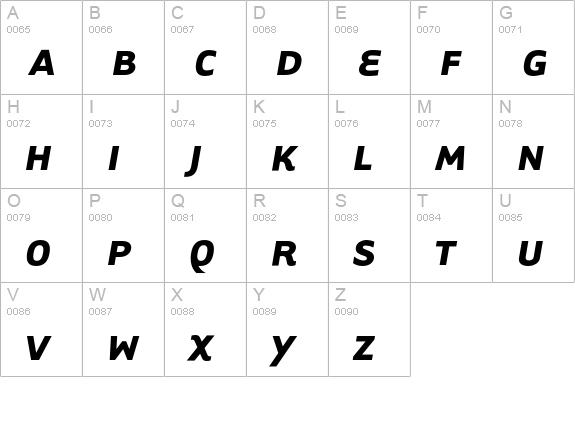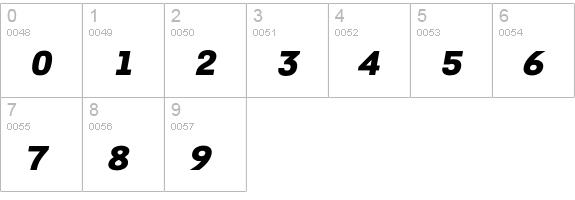
Introducing TarzanaWideBoldItalic font, a stunningly bold and italicized typeface that exudes confidence and elegance. With its wide and bold letterforms, this font commands attention and makes a lasting impression. TarzanaWideBoldItalic is the perfect choice for designs that require a strong visual impact. Whether it's for logos, headlines, or branding materials, this font adds a touch of sophistication and modernity to any project. What sets TarzanaWideBoldItalic apart is not just its striking aesthetics, but also its versatility. It is equally at home in both print and digital mediums, ensuring that your message resonates across various platforms. The best part? TarzanaWideBoldItalic is available for free download at FontsMarket.com. Yes, you read that right – this incredible font is freely accessible to all, allowing you to add a touch of boldness to your designs without breaking the bank. So why wait? Download TarzanaWideBoldItalic today and unleash your creativity. Let this font elevate your designs to new heights and captivate your audience with its irresistible charm.